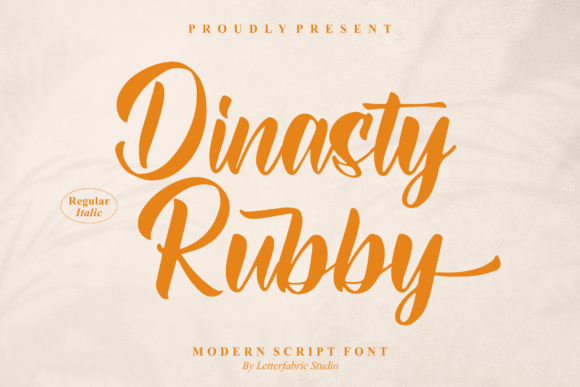
Embark on a typographic odyssey with Dinasty Rubby, a captivating script font that dances across your designs with its enchanting characters. Its playful charm enlivens any project, inviting you to add a touch of whimsy and romance.
Immerse yourself in a world where letters become art, where each stroke tells a story. Dinasty Rubby is the perfect font for tri-fold posters, its flowing lines and elegant curves adding an undeniable allure. Every word crafted with this font becomes a visual masterpiece, drawing the eyes and capturing hearts.
Unleash your creativity and let Dinasty Rubby transform your designs into breathtaking works of art. This PUA-encoded font grants you effortless access to an array of glyphs and swashes, empowering you to add intricate details and flourishes that elevate your projects to new heights.
Picture your tri-fold poster adorned with Dinasty Rubby's graceful letters. Imagine the impact it will make, captivating audiences with its allure, sparking curiosity, and leaving a lasting impression. Elevate your designs to extraordinary heights with this enchanting font, and witness the magic unfold.
With Dinasty Rubby, typography transcends its boundaries, becoming an art form that captivates and inspires. Embrace the beauty of written words, let your creativity soar, and let Dinasty Rubby guide you on a typographic adventure like no other.